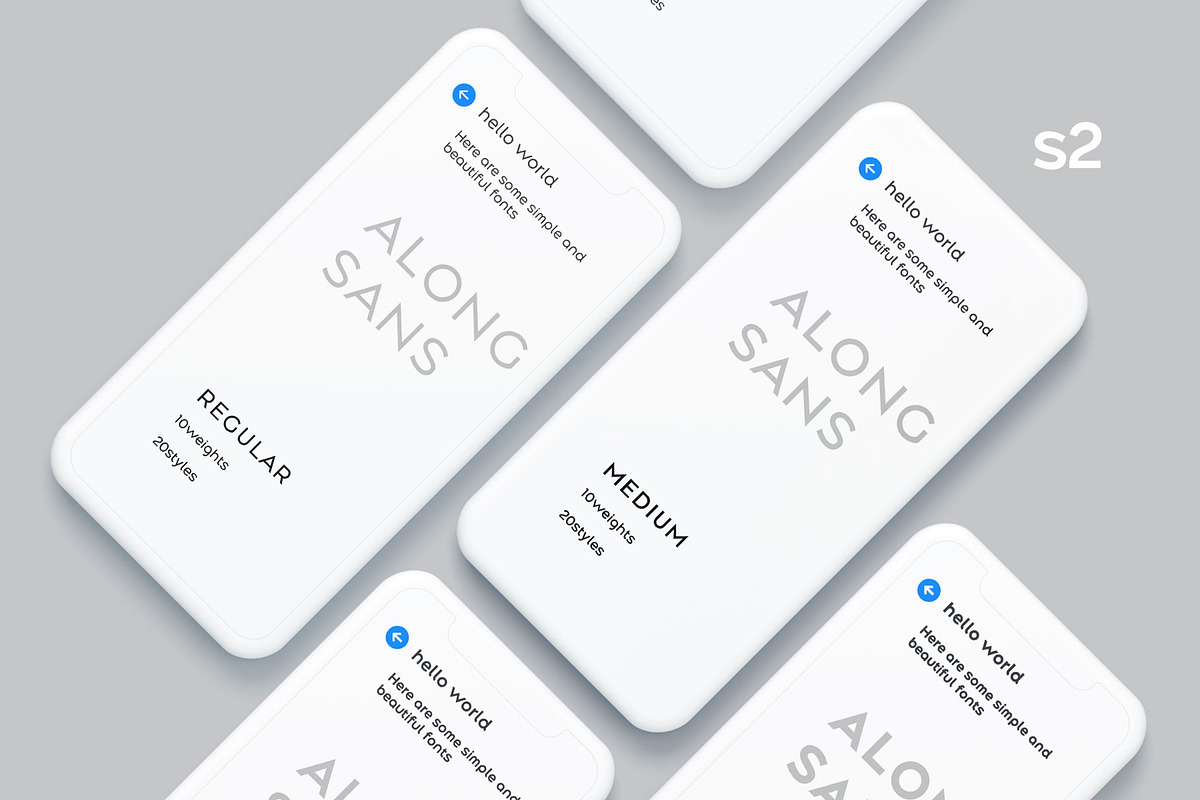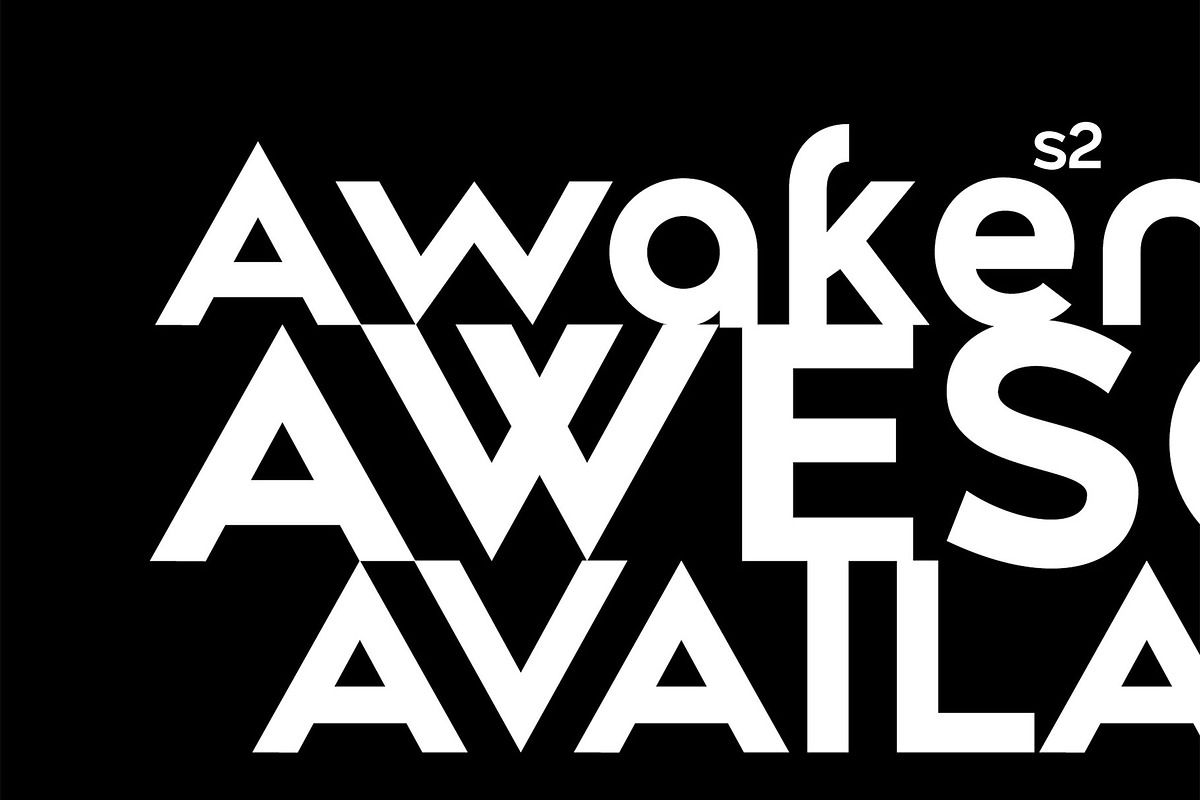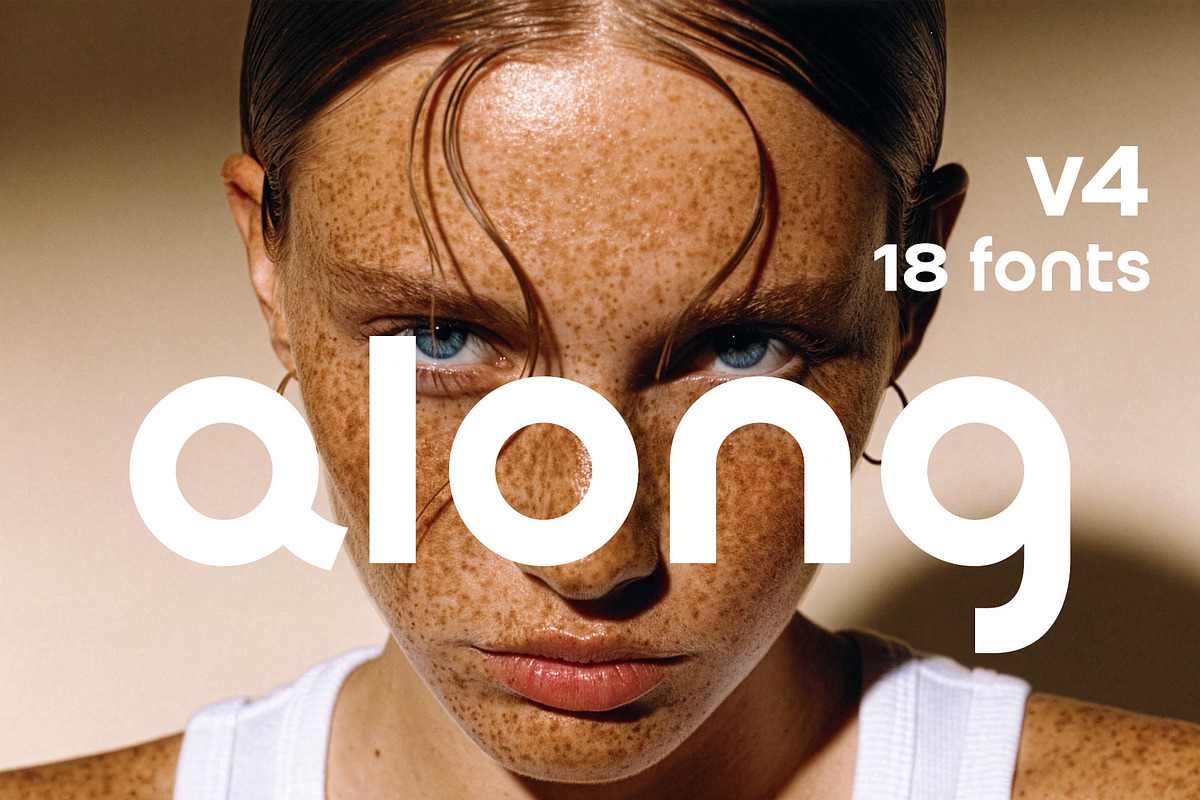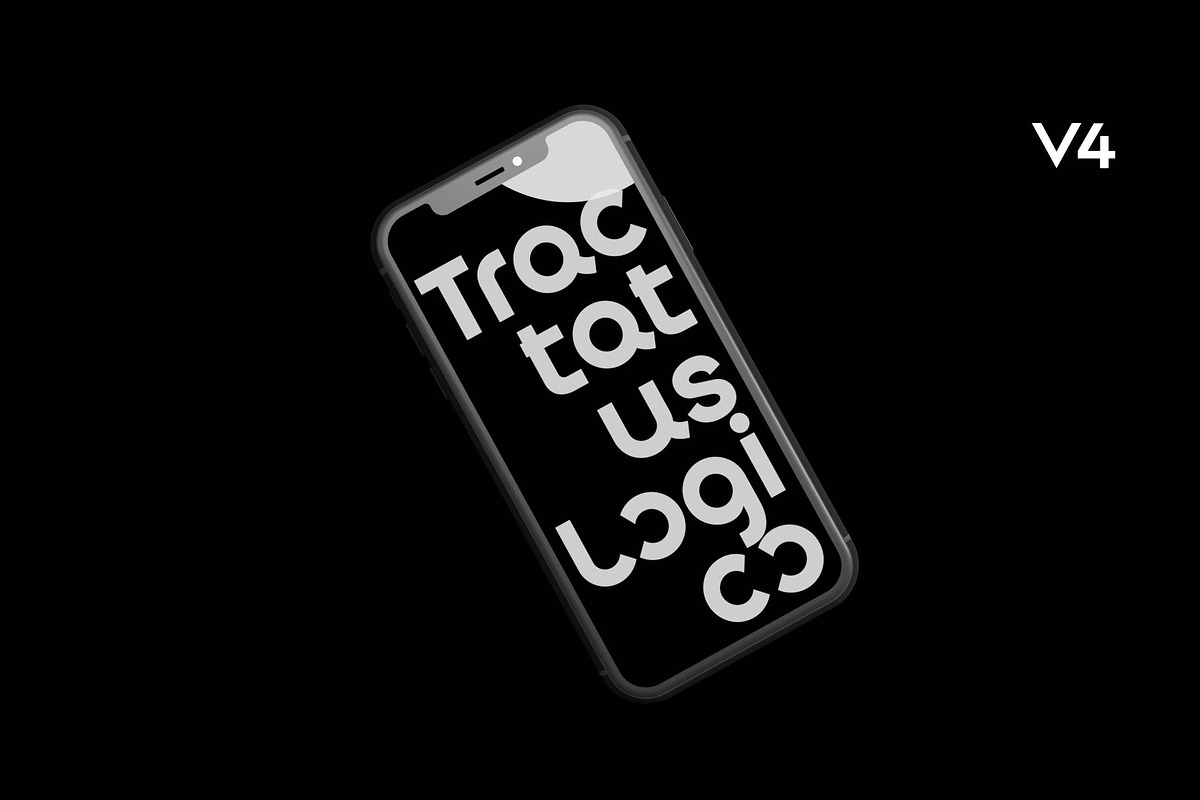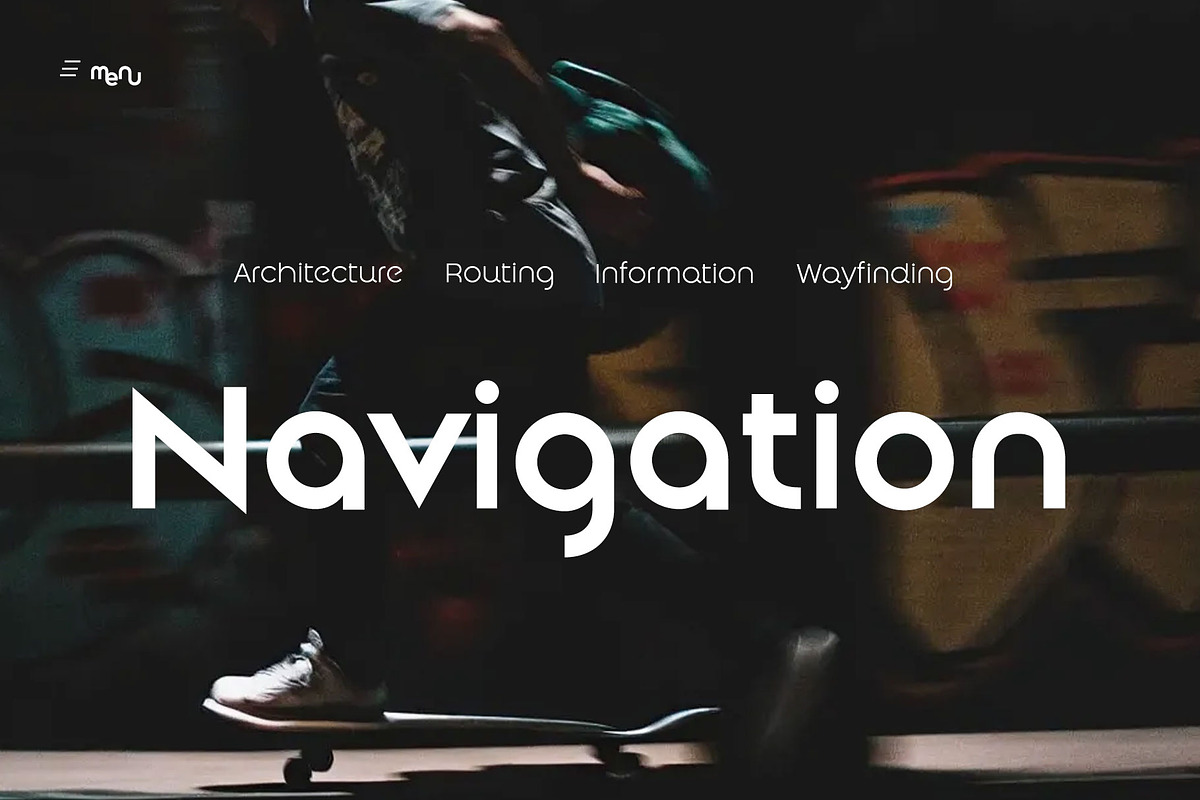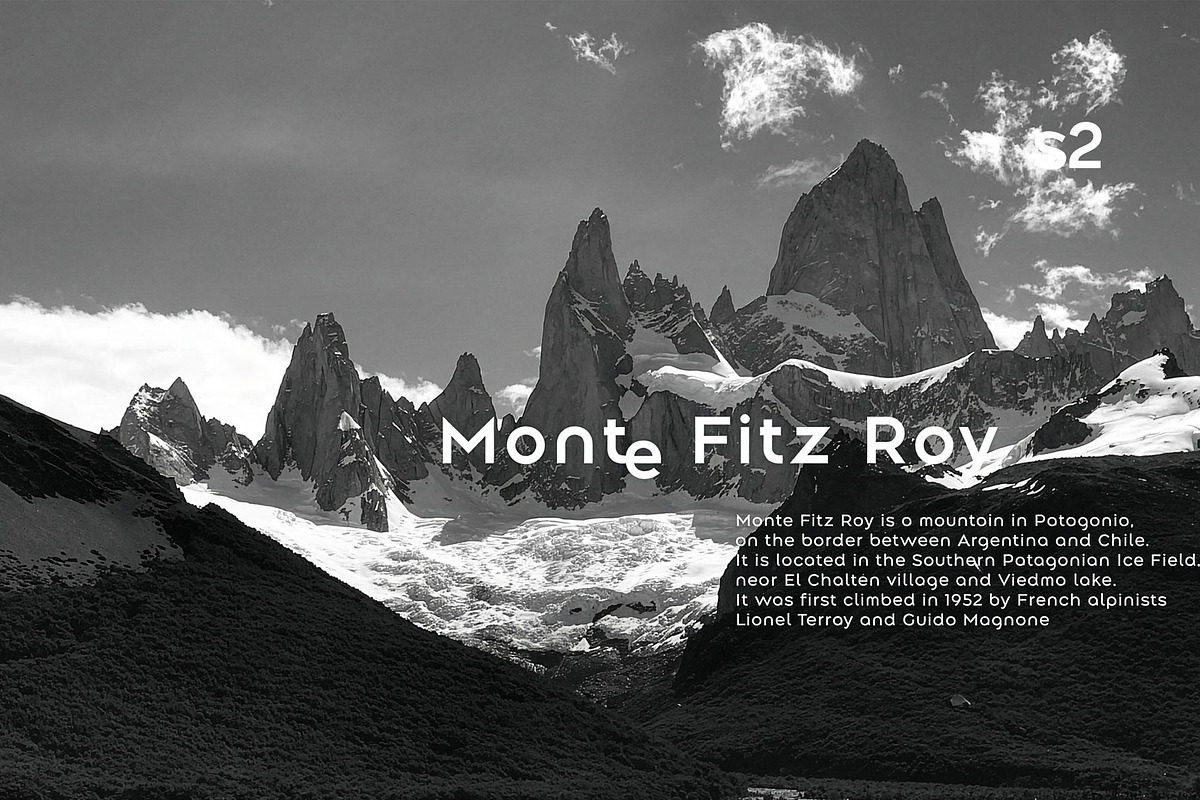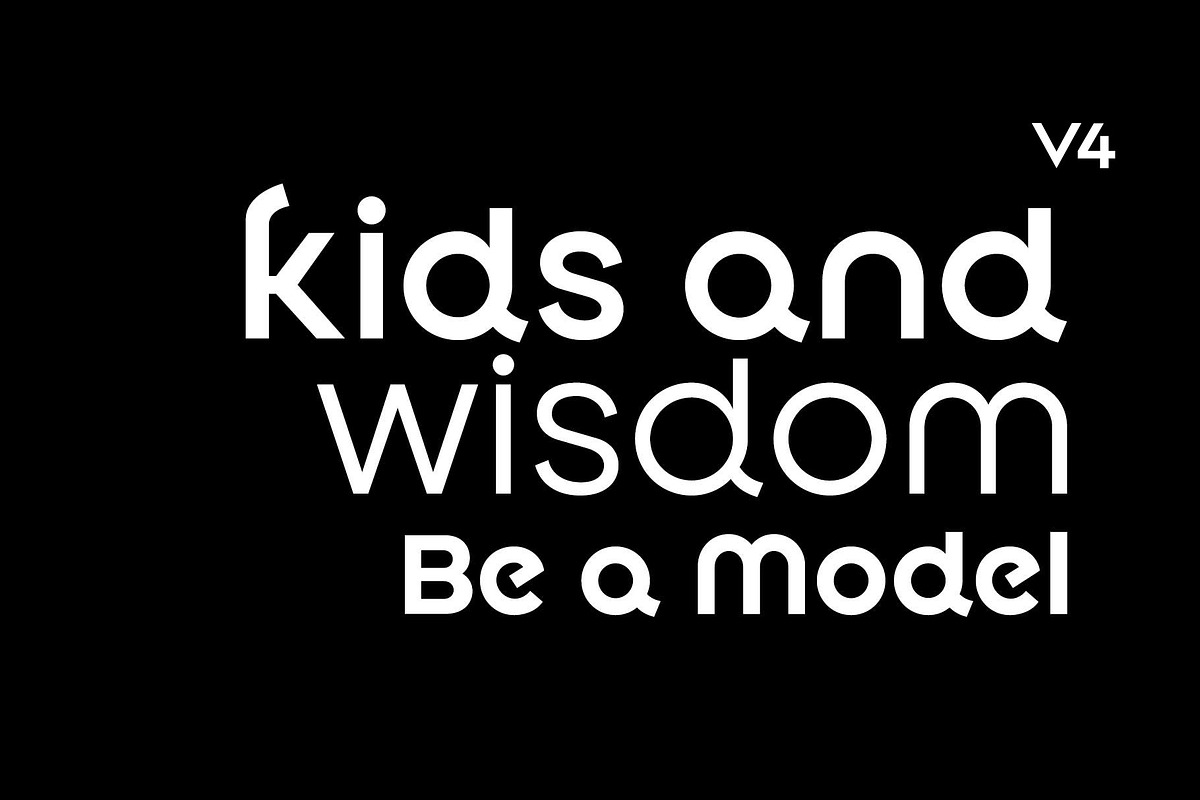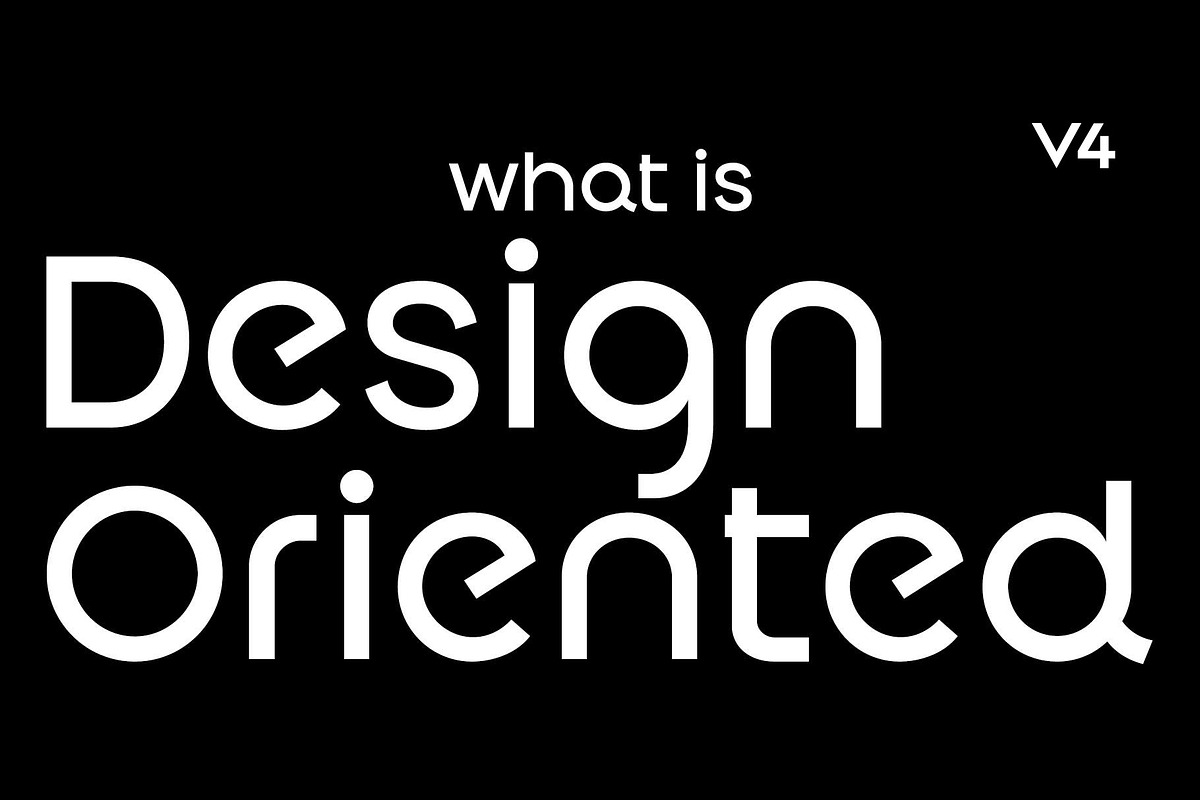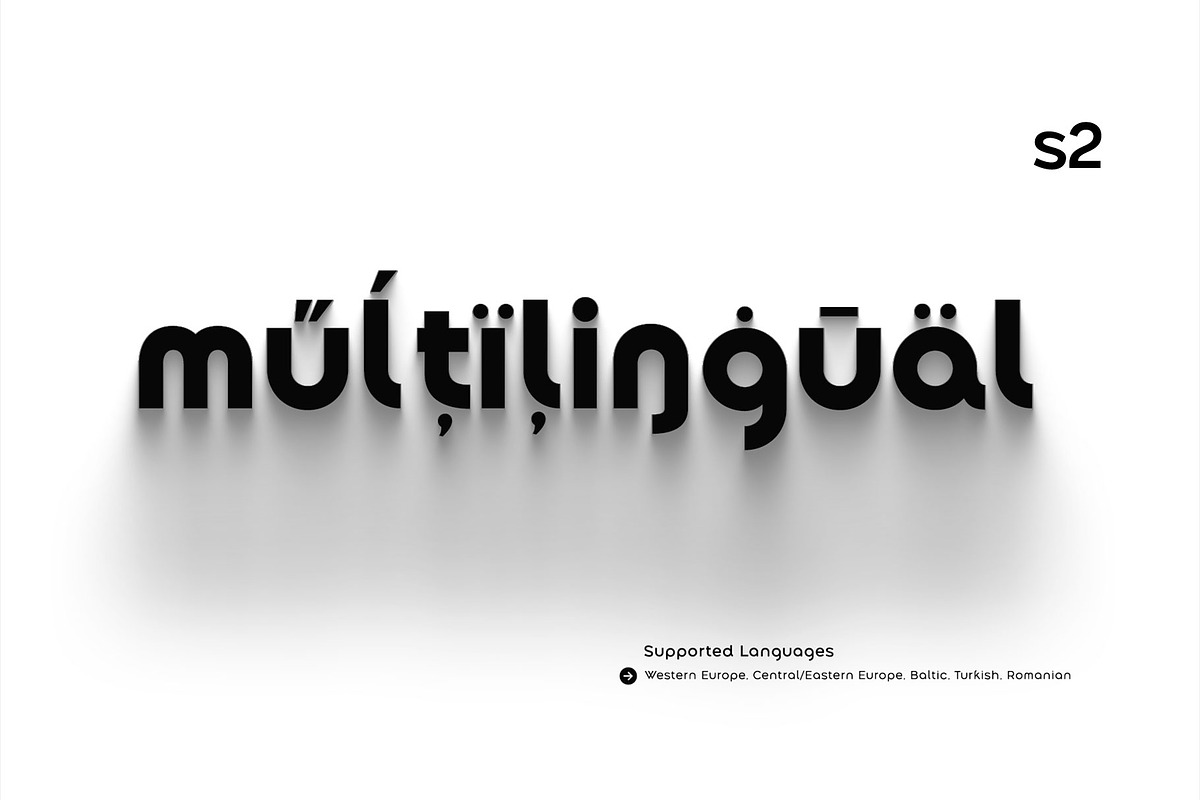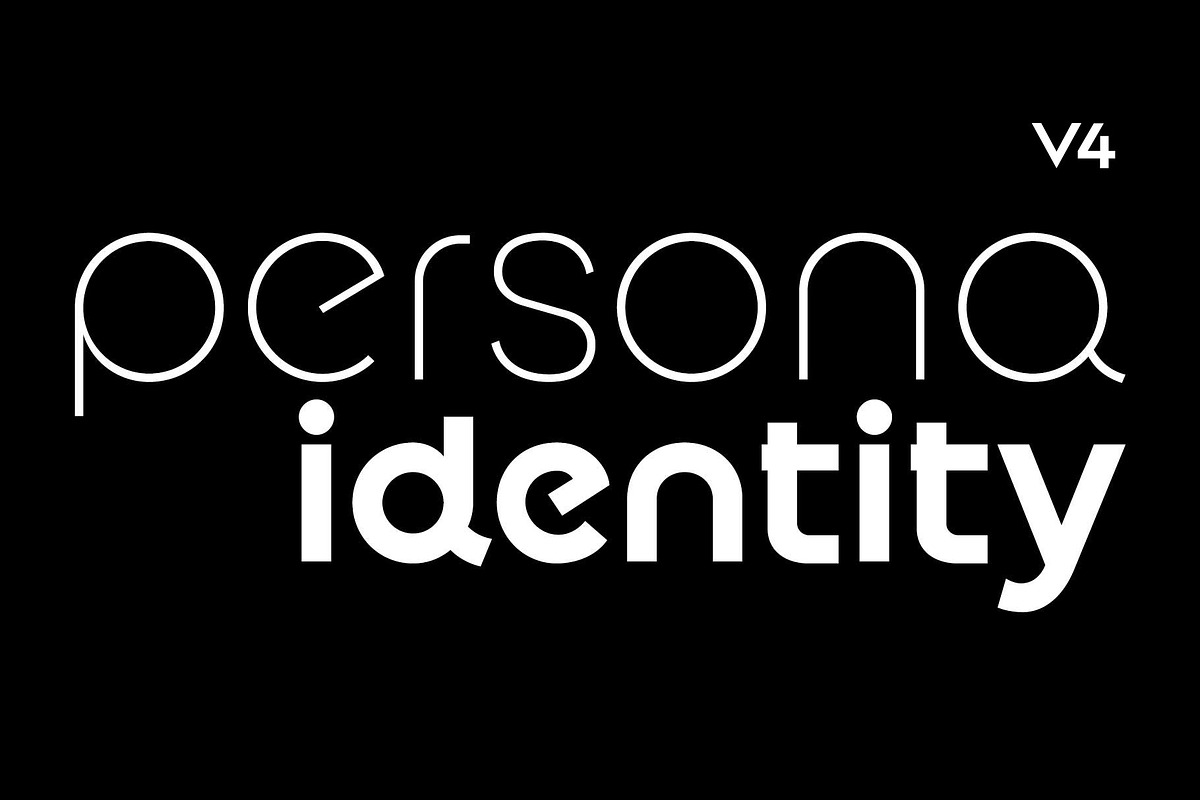
Along Sans Ultimate Edition
Designed with familiar geometric anatomy, Along Sans effortlessly adapts to logos, headlines, and branding systems. Over time, each release evolved with refined glyphs and expanded language support while preserving its own distinct identity. This unified collection brings every iteration together, offering a broader range of choices to perfectly align with your design intent. Each font option varies noticeably in weight and metrics, as well as in tone and emotional direction. We kindly ask you to specify your preferred style and layout based on your project requirements.
Along Sans s2
10 weights, 20 Styles
585 Glyphs
Open Type Features
Multilingual Support (Western Europe, Central/Eastern Europe, Baltic, Turkish, Romanian)
Along Sans v4
9 weights, 18 Styles
647 Glyphs
Latin 1,2 / Basic Cyrillic
Open Type Features